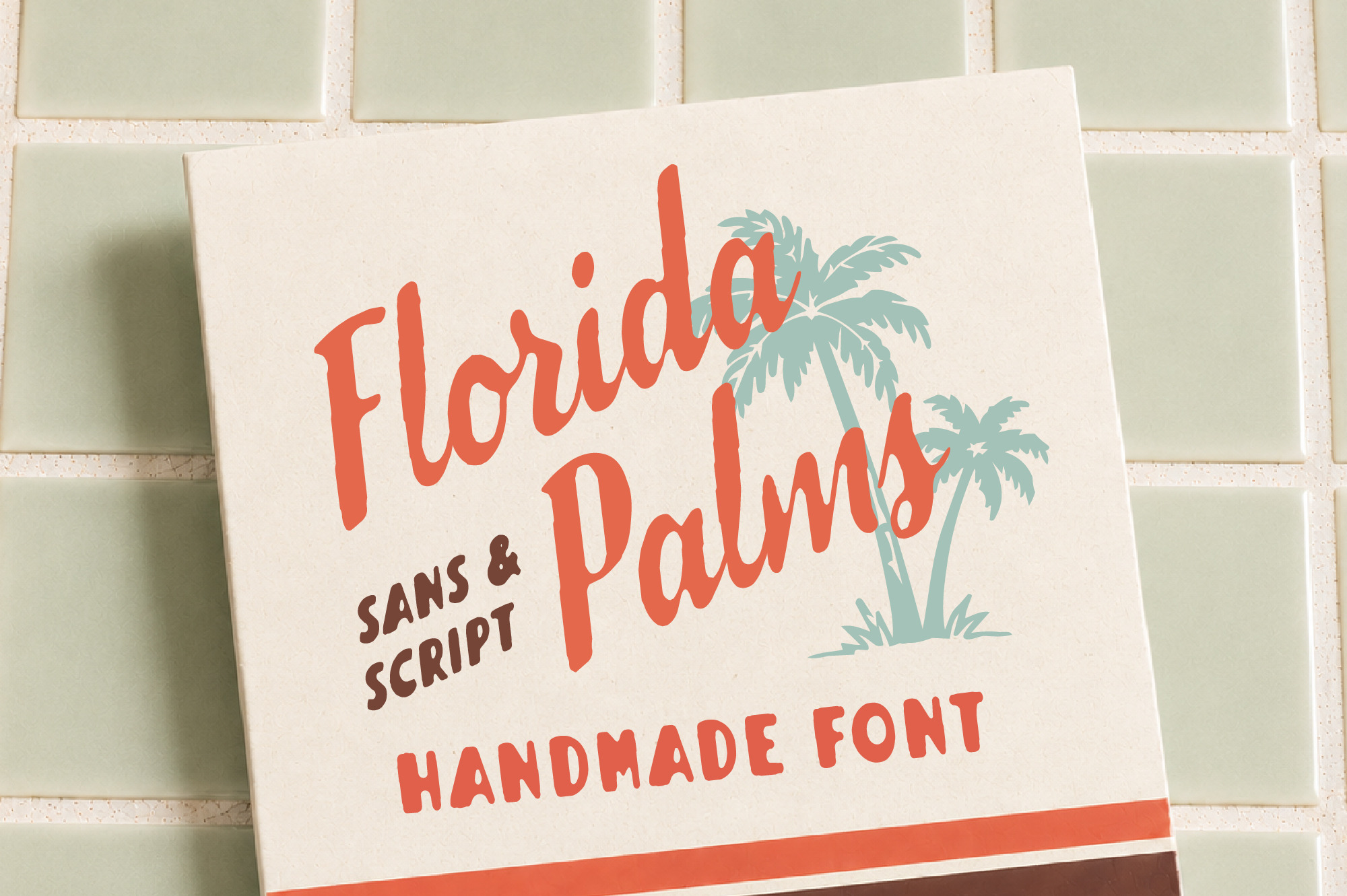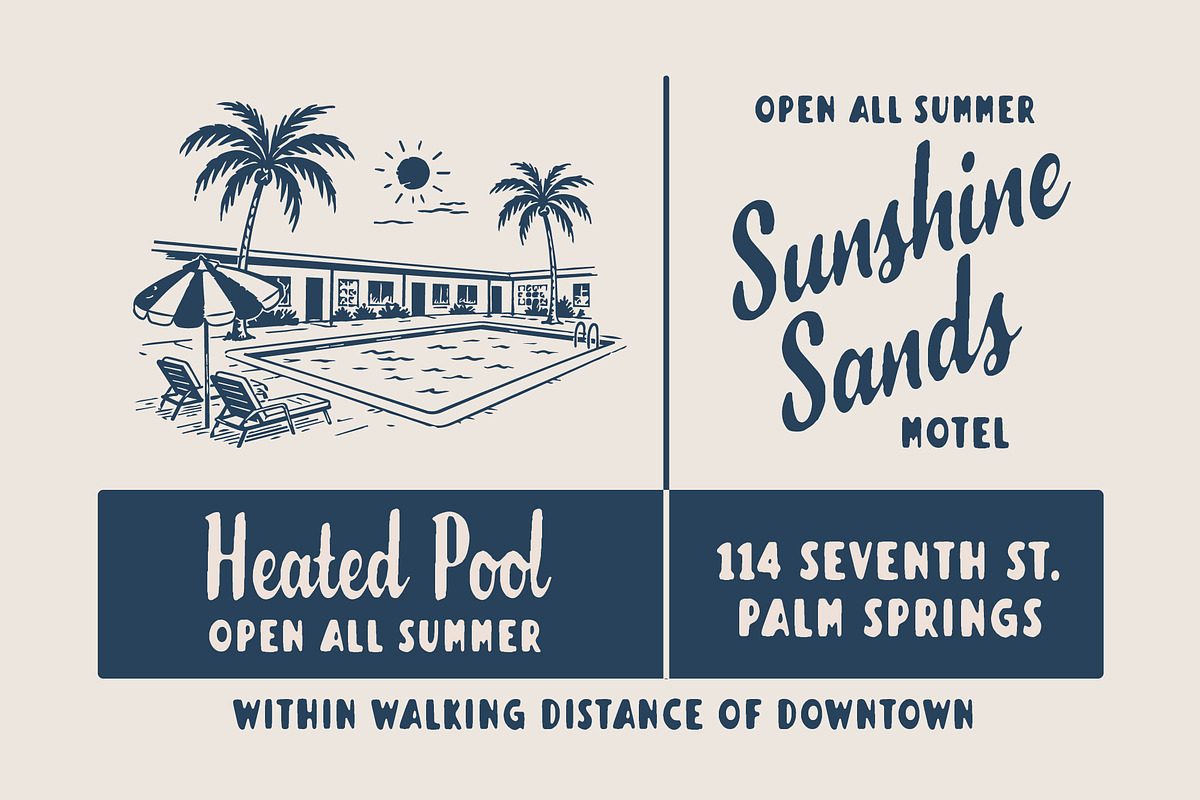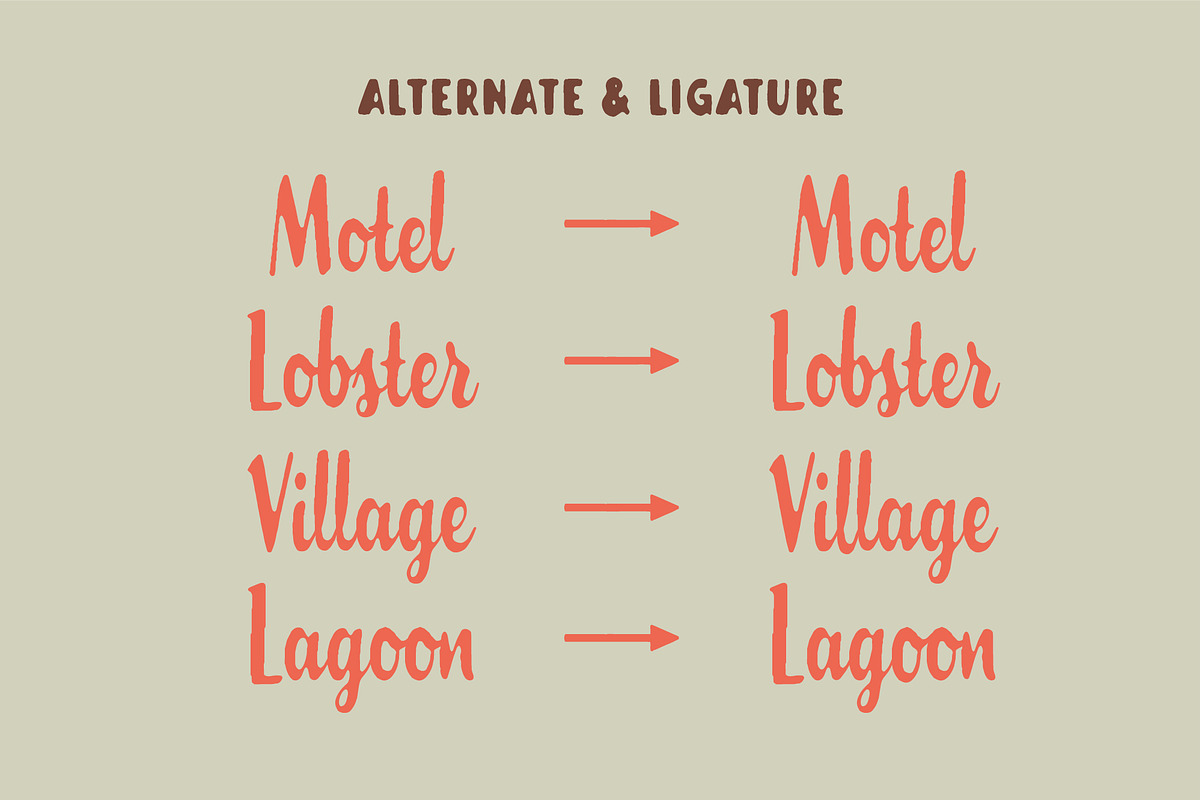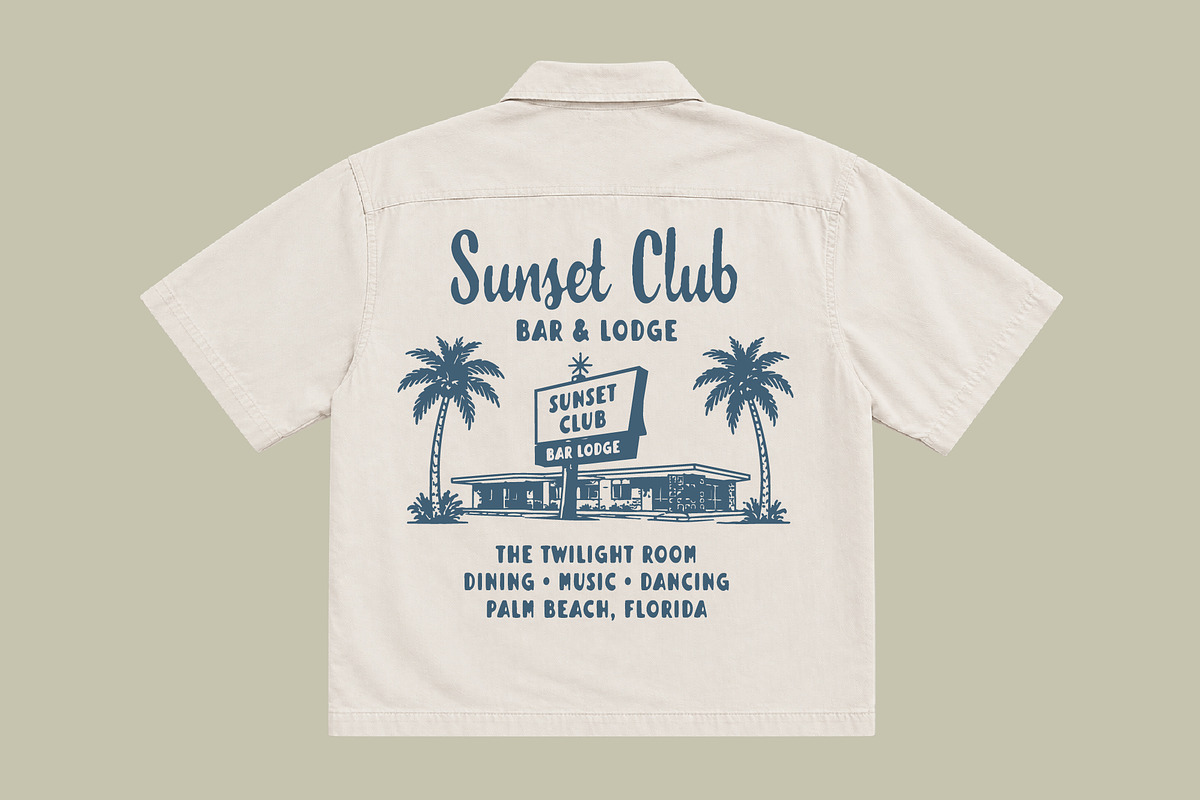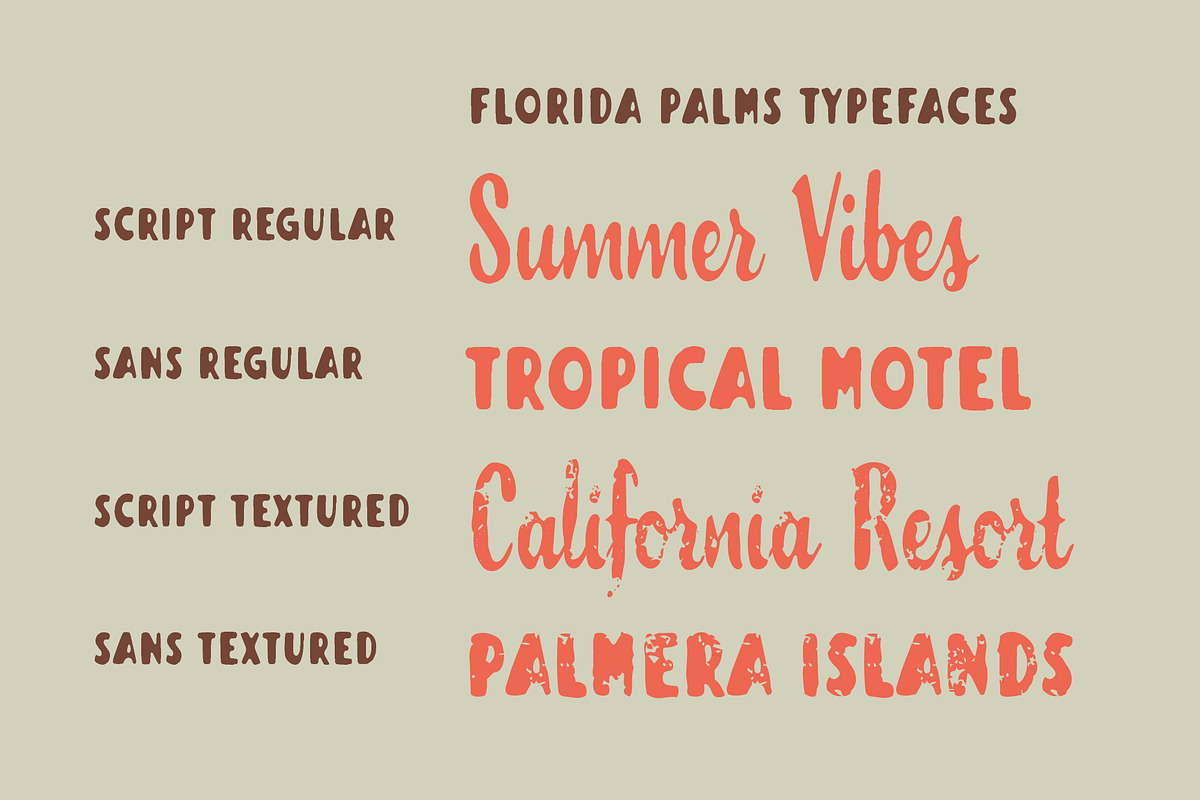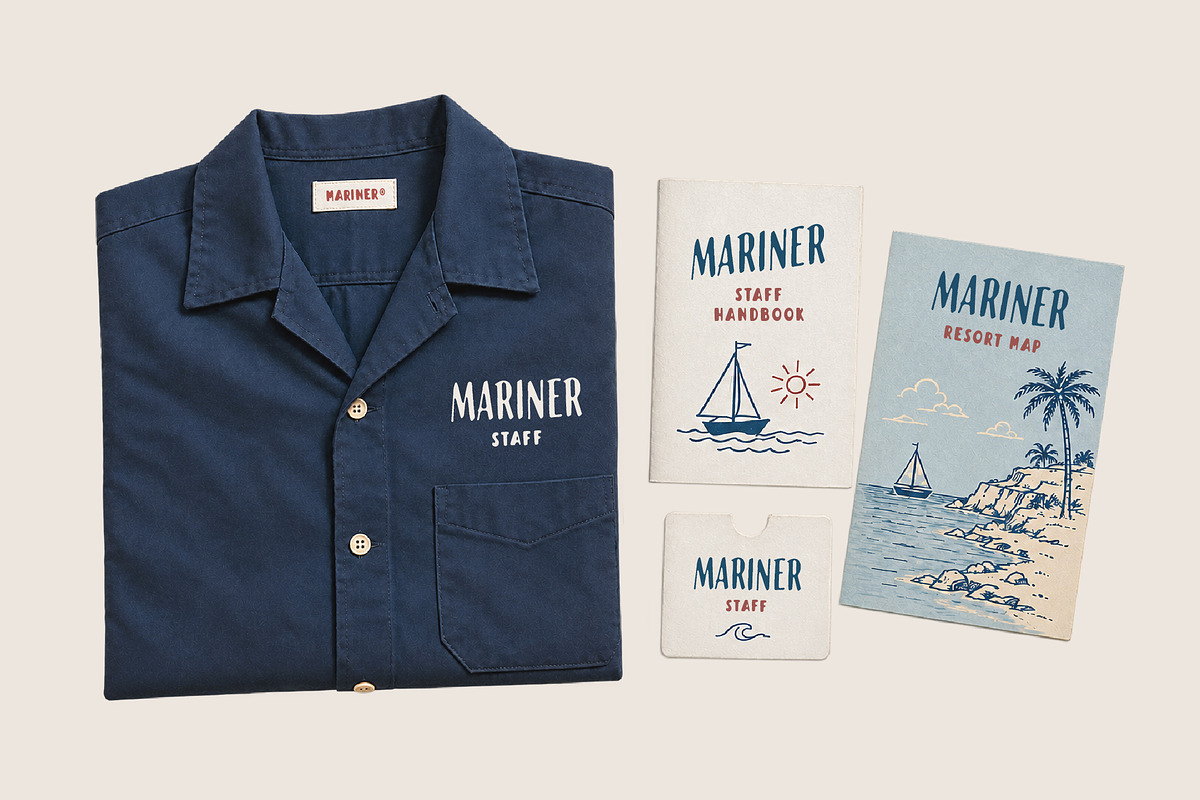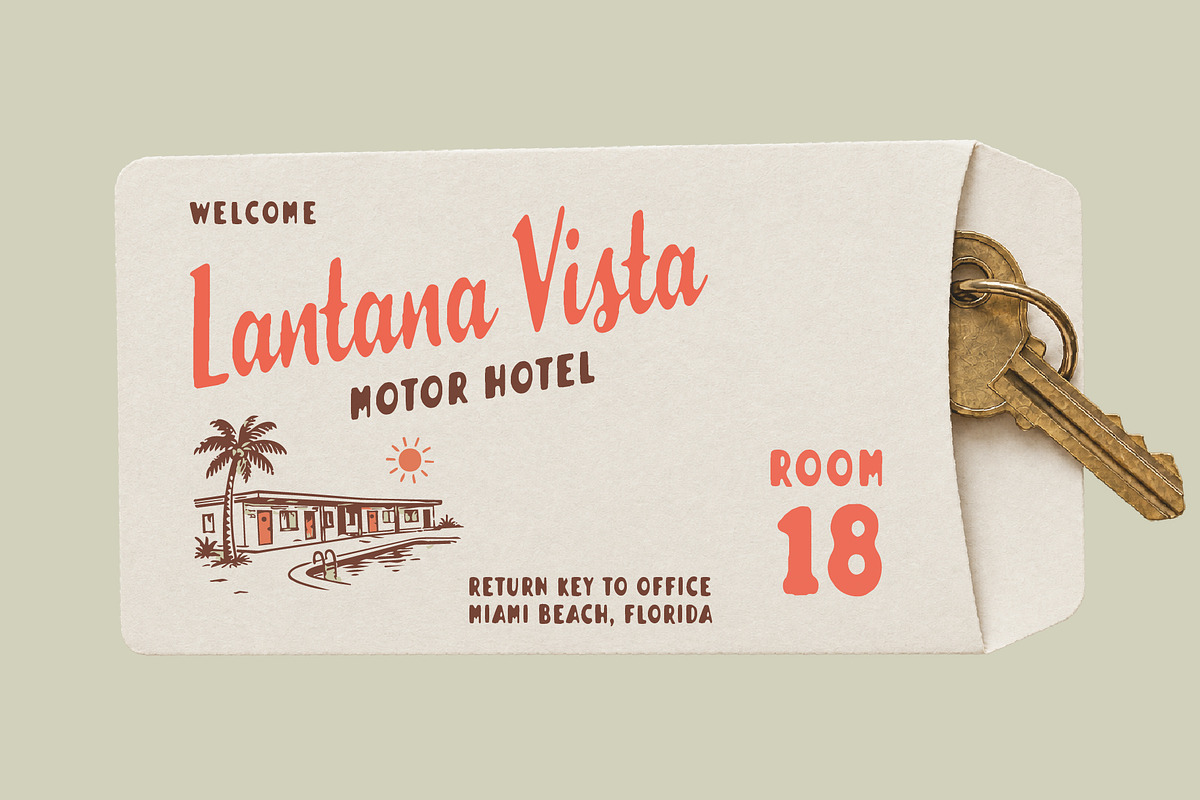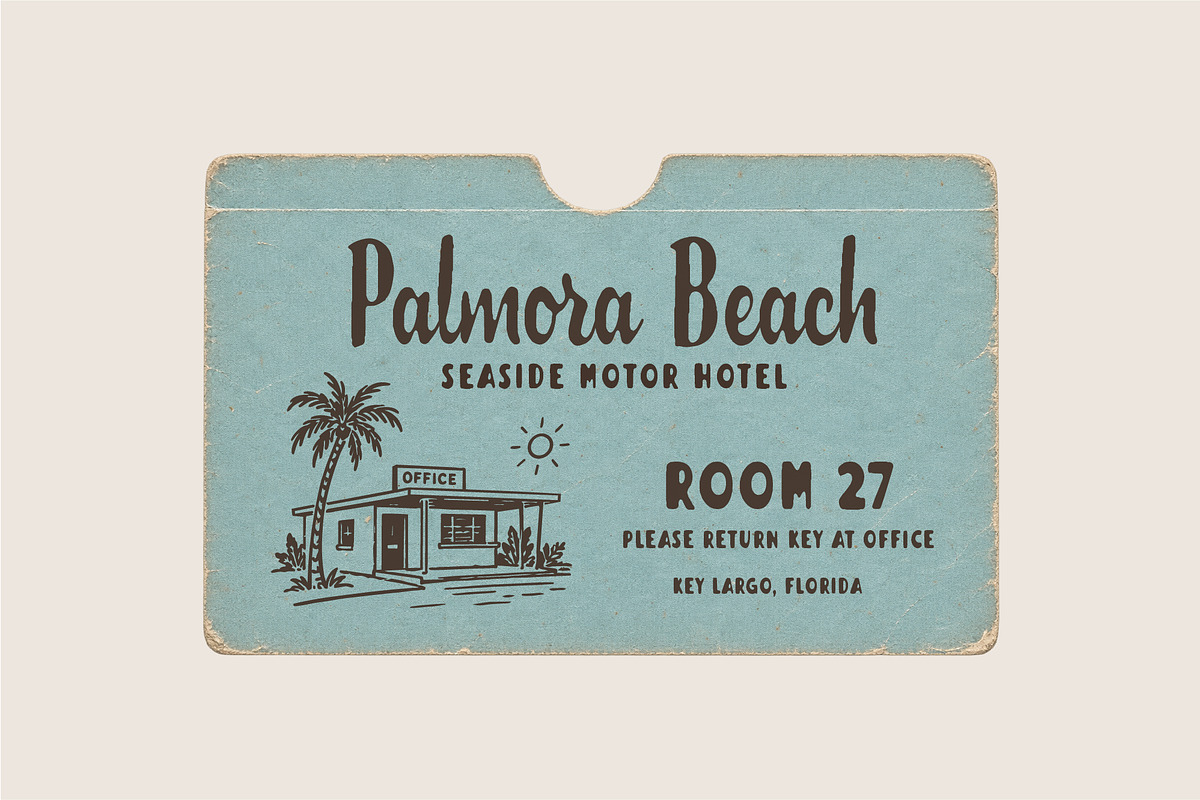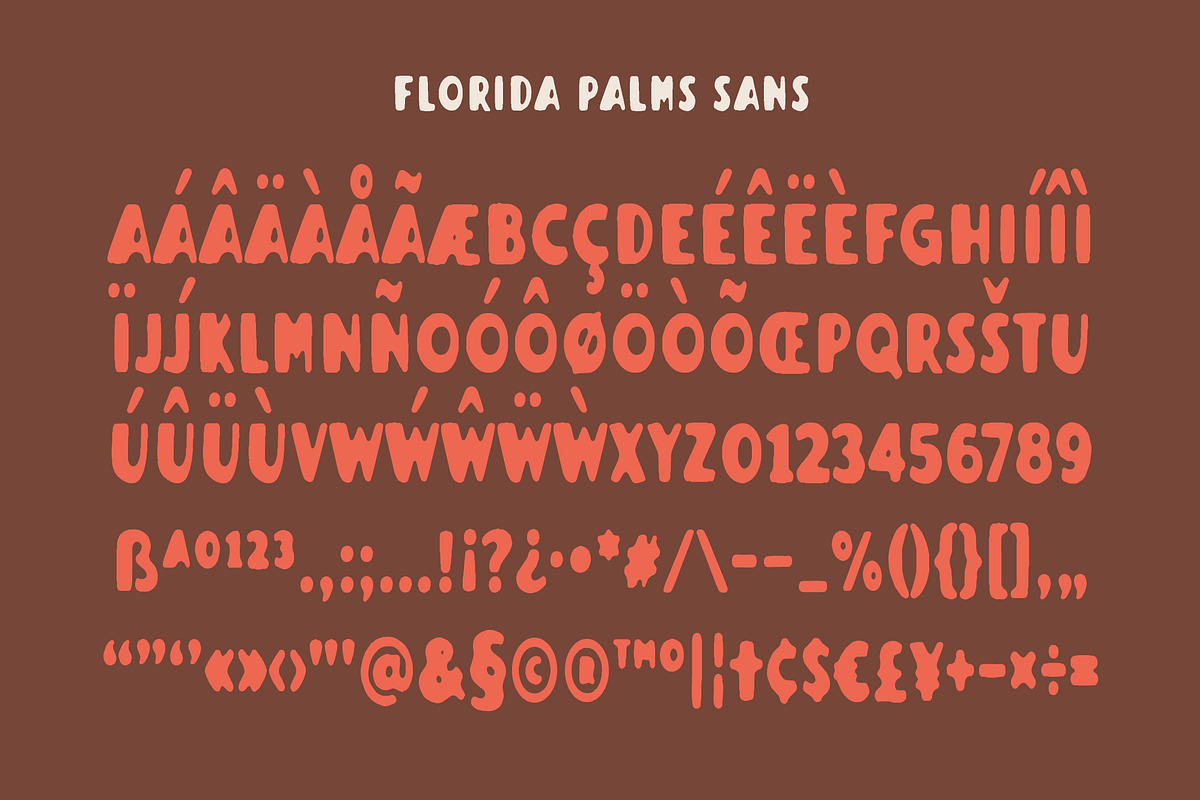
Florida Palms – Tropical Font Duo
**Florida Palms **is a handcrafted script and sans font family inspired by mid-century resort lettering, vintage roadside motel signs, and tropical summer posters. It is designed for visual branding designers who want relaxed, handmade typography with an authentic 1950s–60s vacation atmosphere.
The family pairs an expressive retro script with a bold all-caps sans. Florida Palms Script brings a natural hand-painted flow to headlines and logos, while Florida Palms Sans provides a strong supporting style for names, details, prices, and short messages. Regular styles create a cleaner appearance, while the Textured versions add a lightly weathered, screen-printed finish.
Florida Palms works especially well for hotel and resort branding, motel identities, tropical logos, summer campaigns, vacation posters, apparel, merchandise, packaging, restaurant menus, invitations, signage, postcards, and social media graphics.
- 2 typefaces (Florida Palms Script and Florida Palms Sans)
- 2 styles for each typeface (Regular & Textured)
- Uppercase, lowercase, numerals, symbols, punctuation, alternates and ligatures in Florida Palms Script
- All-caps, numerals, symbols, and punctuation in Florida Palms Sans
- Multilingual language support